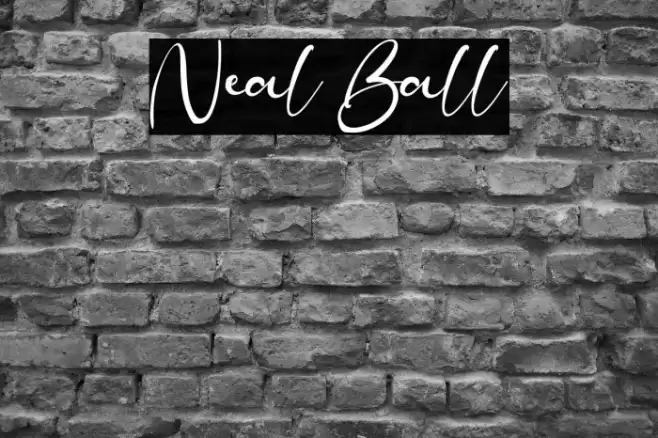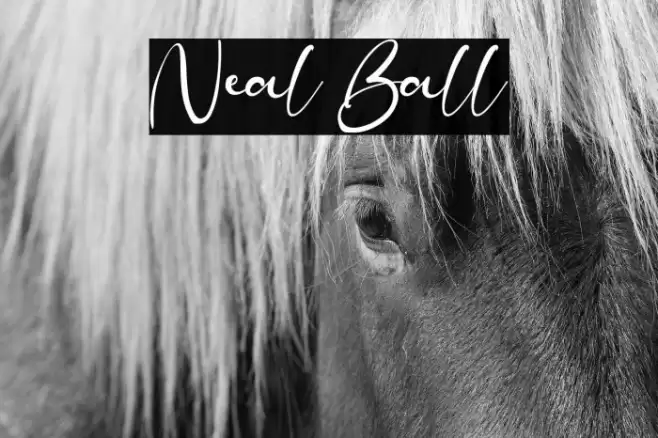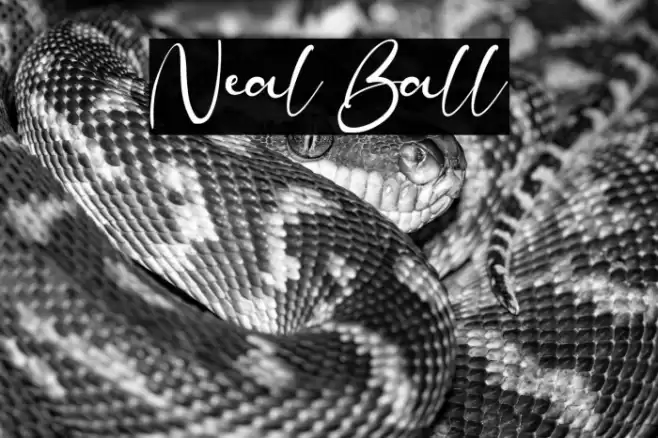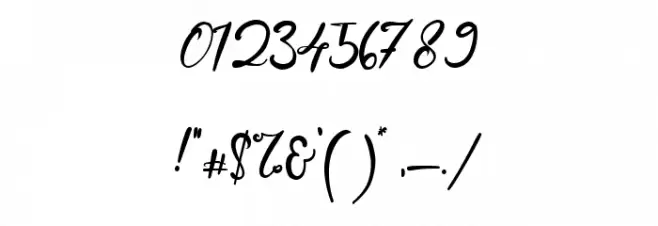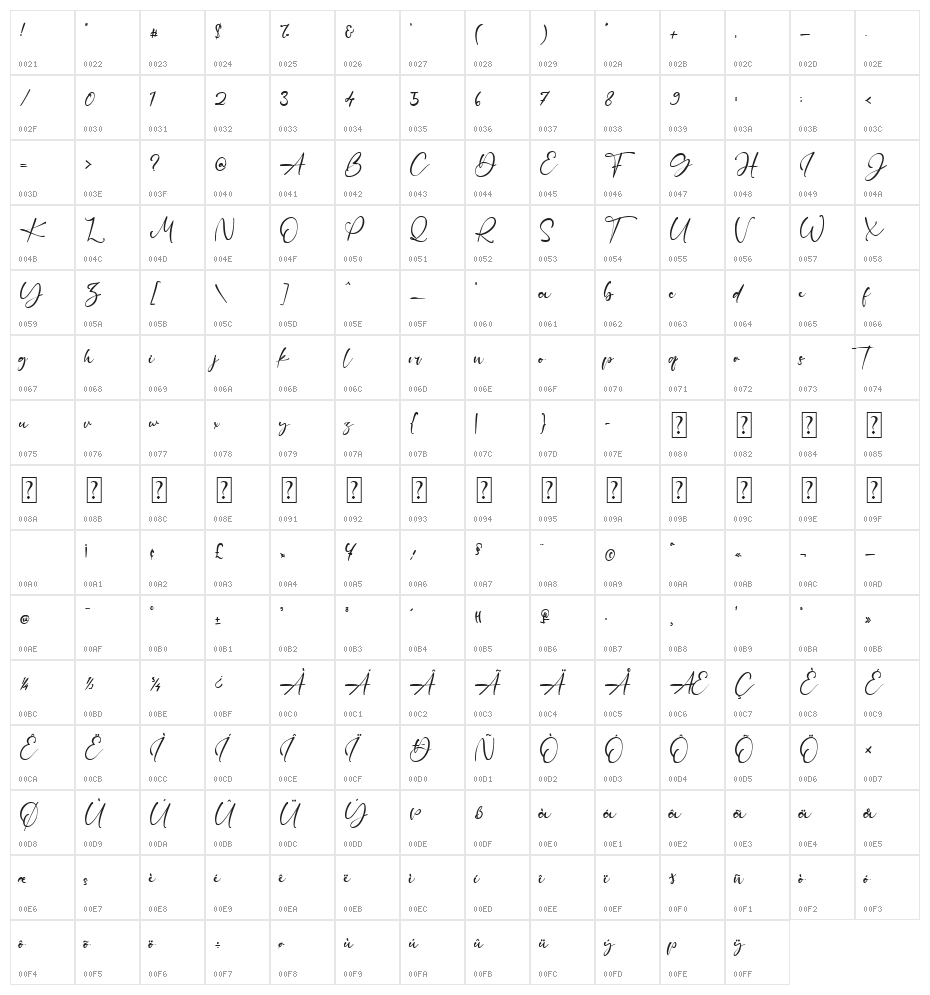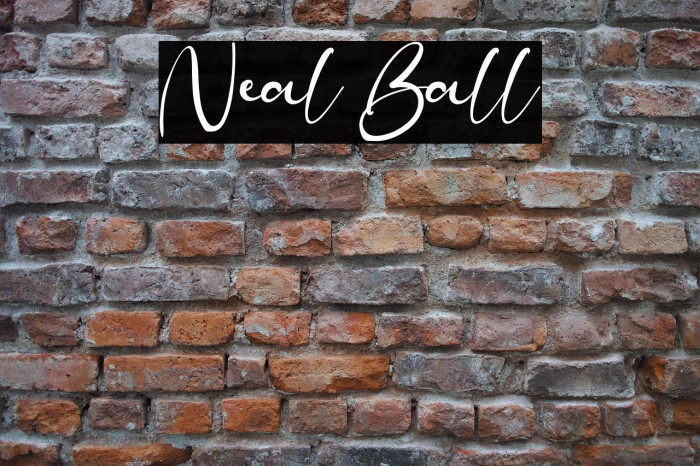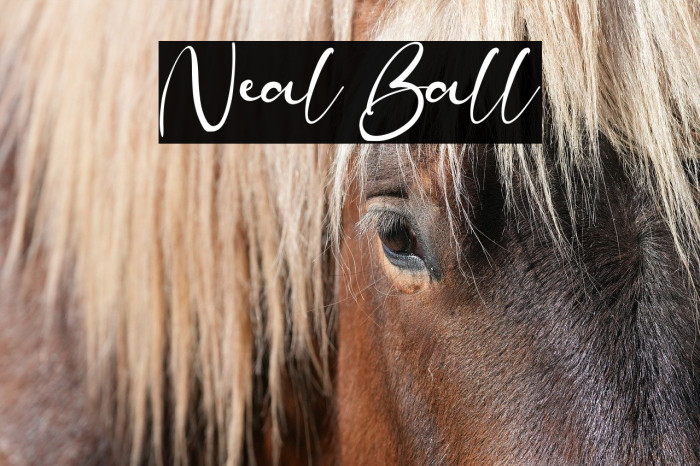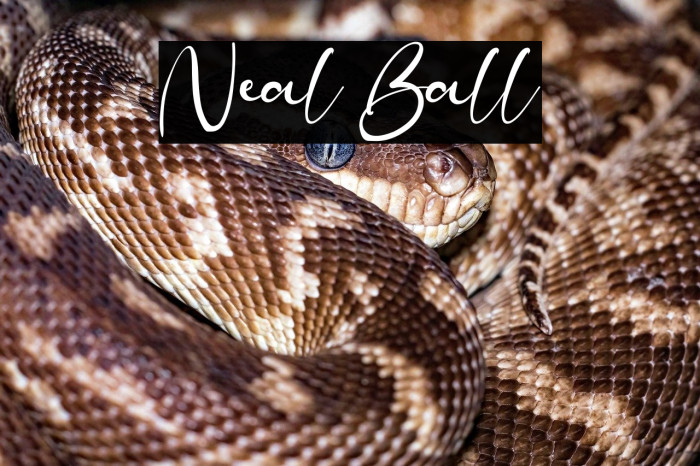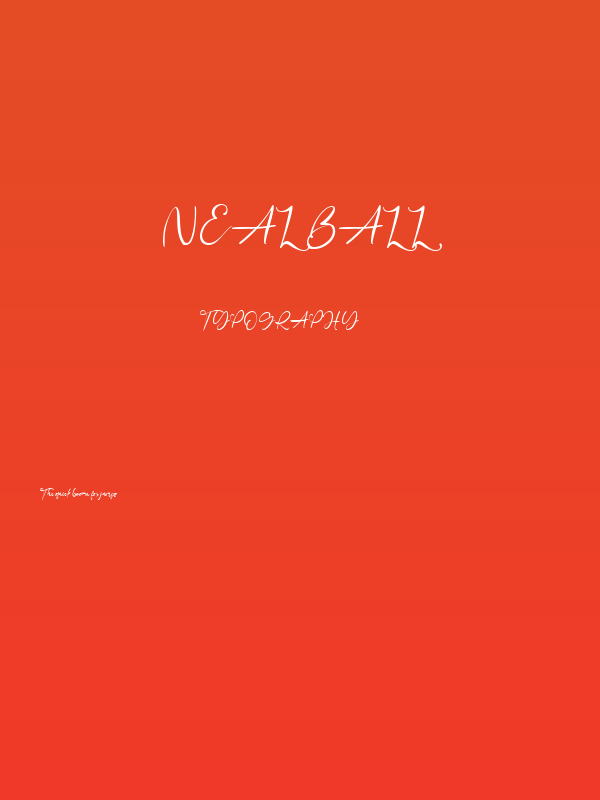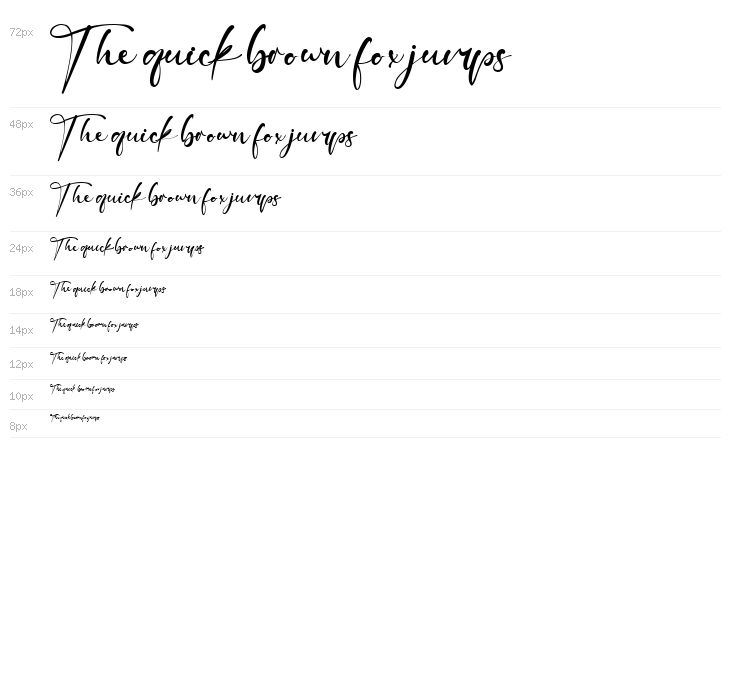
Neal Ball Font
Neal Ball Description
This font features an elegant and flowing script style, characterized by its smooth, cursive letterforms that mimic the fluidity of handwriting. The uppercase letters are bold and dynamic, with sweeping lines and loops that convey a sense of movement and grace. The lowercase letters maintain a consistent style, with slightly more compact forms that enhance readability while retaining the overall aesthetic. Numbers and special characters are designed to complement the script, with similar curves and flourishes. The font's overall appearance is sophisticated and artistic, making it suitable for projects that require a personal touch.
An elegant, flowing script font with a handwritten style from Regular fonts.